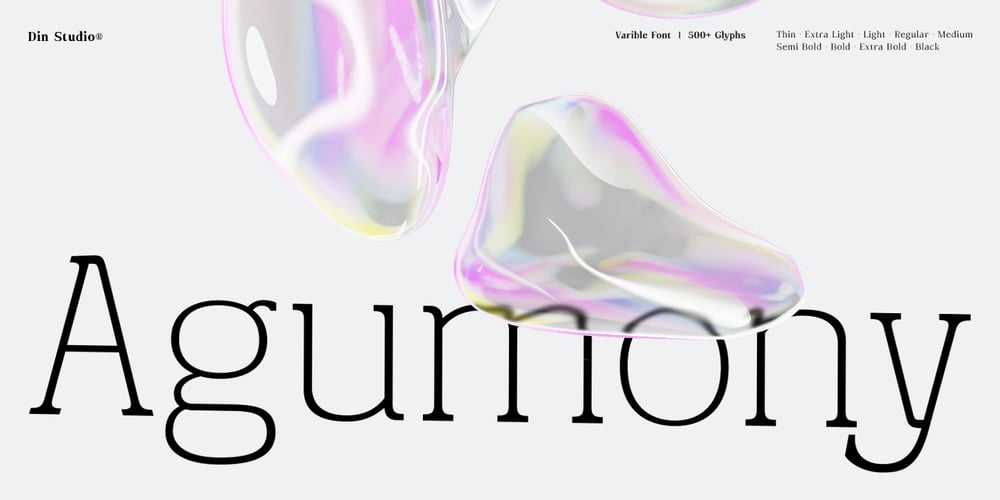
Agumony
Agumony font
Agumony Font Family was designed by Donis Miftahudin and published by Din Studio. Agumony contains 9 styles and family package options. Agumony is a sleek sans serif font family crafted in a simple and modern style. With 9 different weights, it offers unparalleled versatility, allowing you the freedom to create designs that range from minimalist to bold. Agumony is your go-to font for a clean, contemporary look. Agumony’s different weight fonts : Thin Extra Light Light Regular Medium Semi Bold Bold Extra Bold Black Features: Multilingual Supports PUA Encoded Numerals and Punctuations Agumony fits in headlines, logos, posters, branding materials, print media, editorial layouts, and many more designs. Find out more ways to use this font by taking a look at the font preview.Thanks for purchasing our fonts. Hopefully, you have a great time using our font. Feel free to contact us anytime for further information or when you have trouble with the font. Thanks a lot and happy designing.